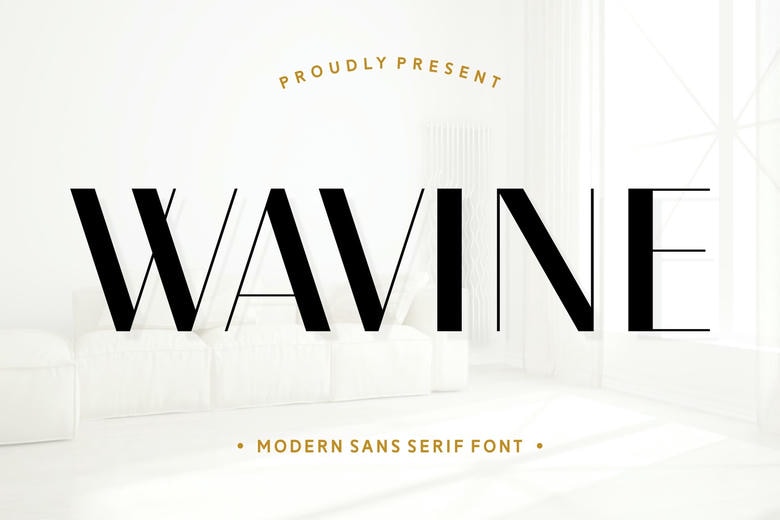
Wavine Font
Wavine is a modern sans-serif font with smooth curves and fluid lines, evoking elegance and simplicity. Its clean design offers versatility, making it ideal for branding, logos, and editorial use. Wavine blends contemporary style with timeless appeal, ensuring readability and visual impact.
Wavine Sans Serif Font